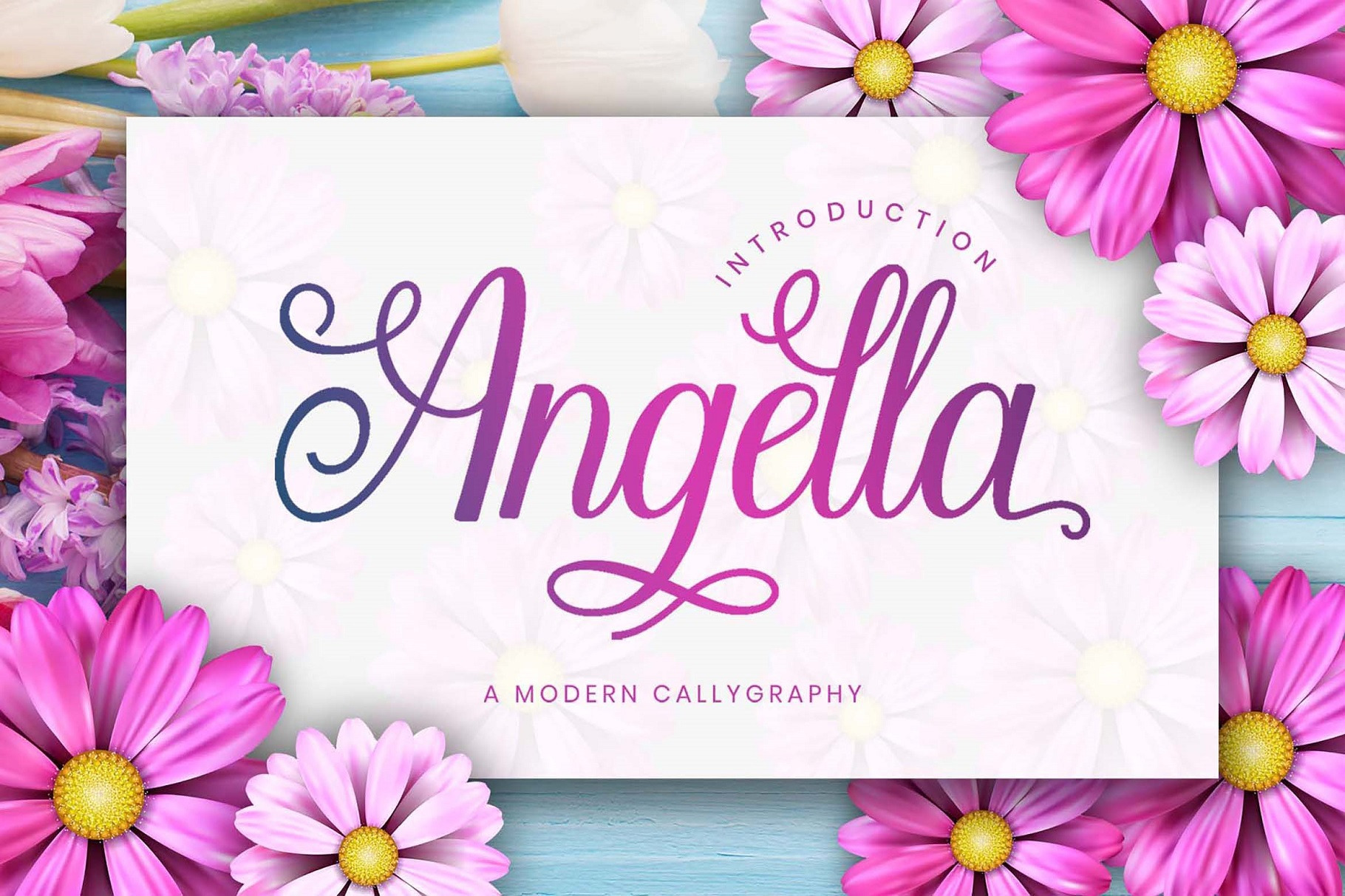
Angella Beauty Srcipt Font
Angella Beauty Script Font is a modern calligraphy or script font with beautiful visual decorations. This font is created to show hand skills with its flexible curves and lines. The feminine impression is very noticeable on this beautiful calligraphy. Because of the beautiful look, it is suitable for those who work in graphic designs. This modern script font works very well for different purposes. Whether it is for logos, t-shirts, product designs, invitations, or watermarks, Angella Beauty Script Font will improve your works’ visual quality. You can see the beauty of how the letters are connected. While remaining easy to read, you can make your works impressive with this lovely stunning font. Since you use software supporting Opentype like Photoshop, Indesign, Illustrator, or Corel Draw, you can access everything in this feminine font. Overall, Angella Beauty Script Font can add a level of charm unmatched by other font styles. Hope you enjoy this font.